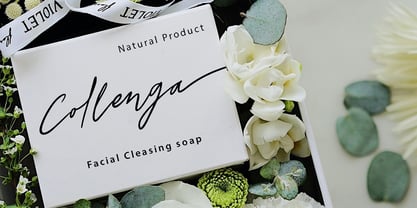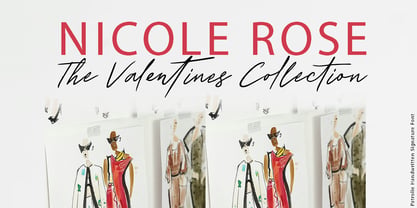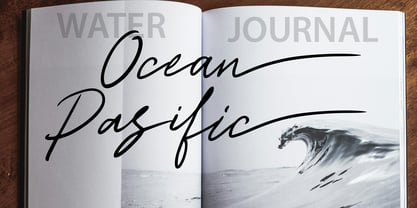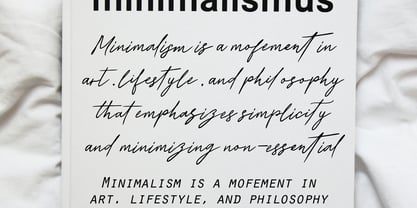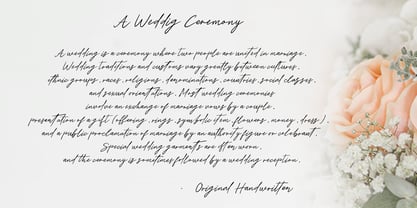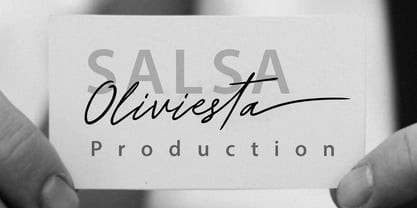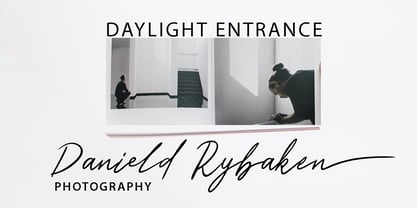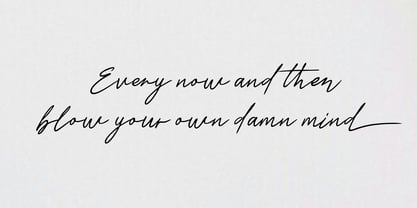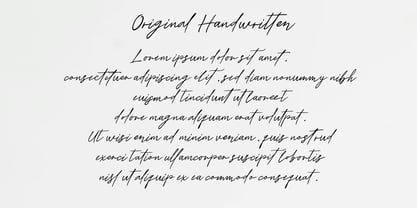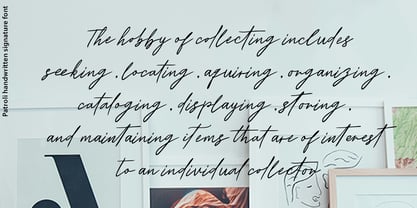
Patroli
por Sulthan Studio
La familia tipográfica Patroli fue diseñada por Nasrullah y publicada por Sulthan Studio. Patroli contiene 1 estilos. Más información sobre esta familia
Introducing a signature font designed to embrace freedom and originality in every stroke. This creation reflects untouched purity; hand-drawn on paper. Its organic nature reflects beauty, carefully achieved using a calligraphy pen. Perfect for mimicking a written signature, this font is also a shining gem for replicating handwritten paper text. Beyond this application, this font proves versatile for a variety of other uses. Experience the natural charm and sophisticated appeal combined in this beautiful signature font.
Diseñadores: Nasrullah
Fundición: Sulthan Studio